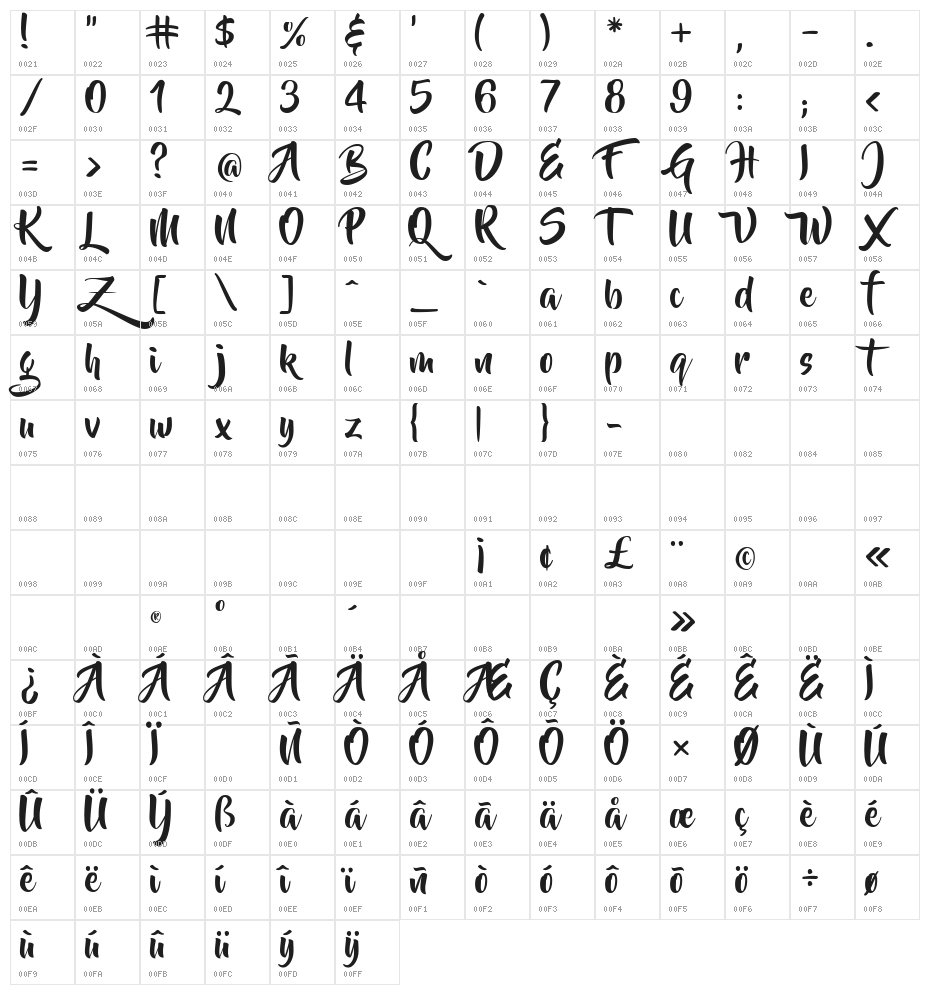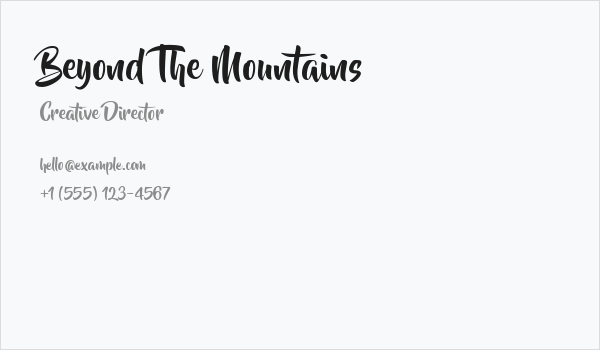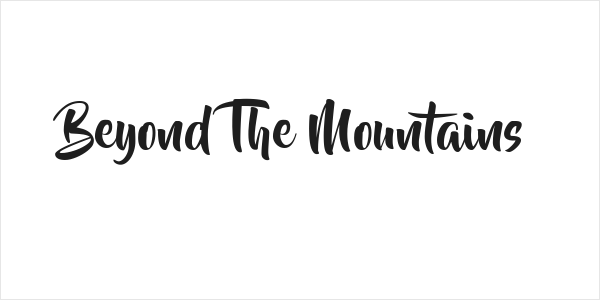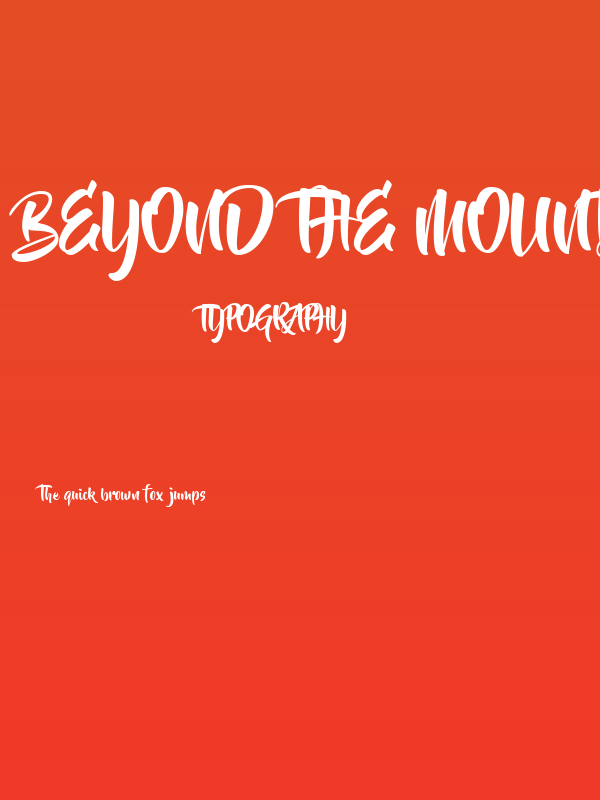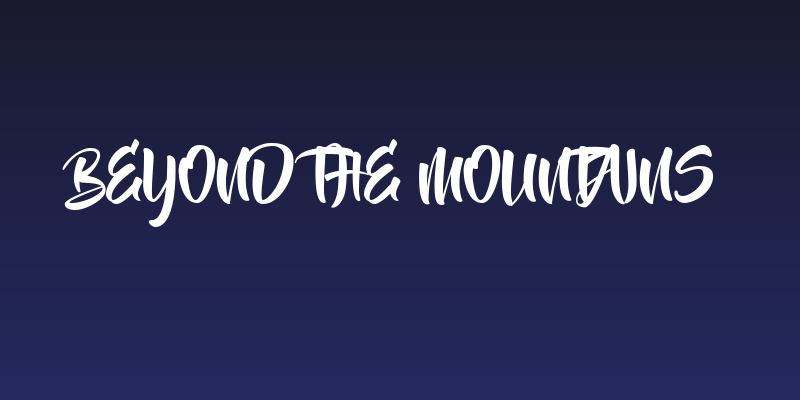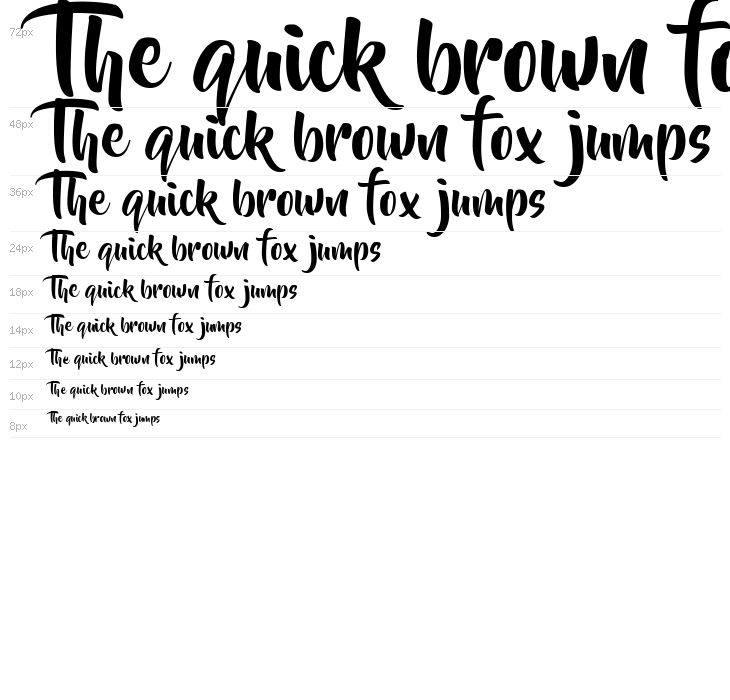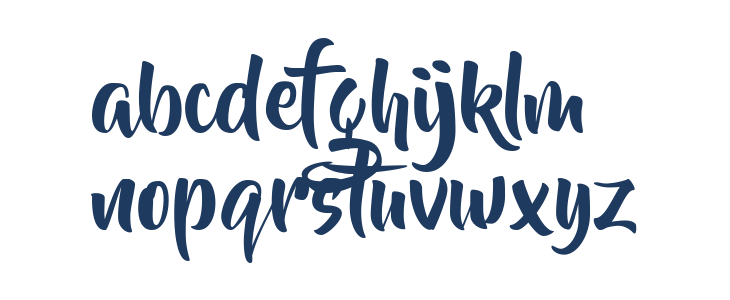
Beyond The Mountains Font
Beyond The Mountains Description
This font features a bold and expressive script style, characterized by its fluid and dynamic strokes. The uppercase letters exhibit a strong presence with sweeping curves and dramatic flourishes, while the lowercase letters maintain a playful and approachable demeanor. The numerals are equally bold, ensuring readability while maintaining the font's overall artistic flair. Special characters are crafted with the same attention to detail, adding versatility to the font's usage. This font's unique style makes it suitable for creative projects that require a personal touch.
| Proposed Projects | Ideal for branding, invitations, posters, and any project that benefits from a personal, artistic touch. |